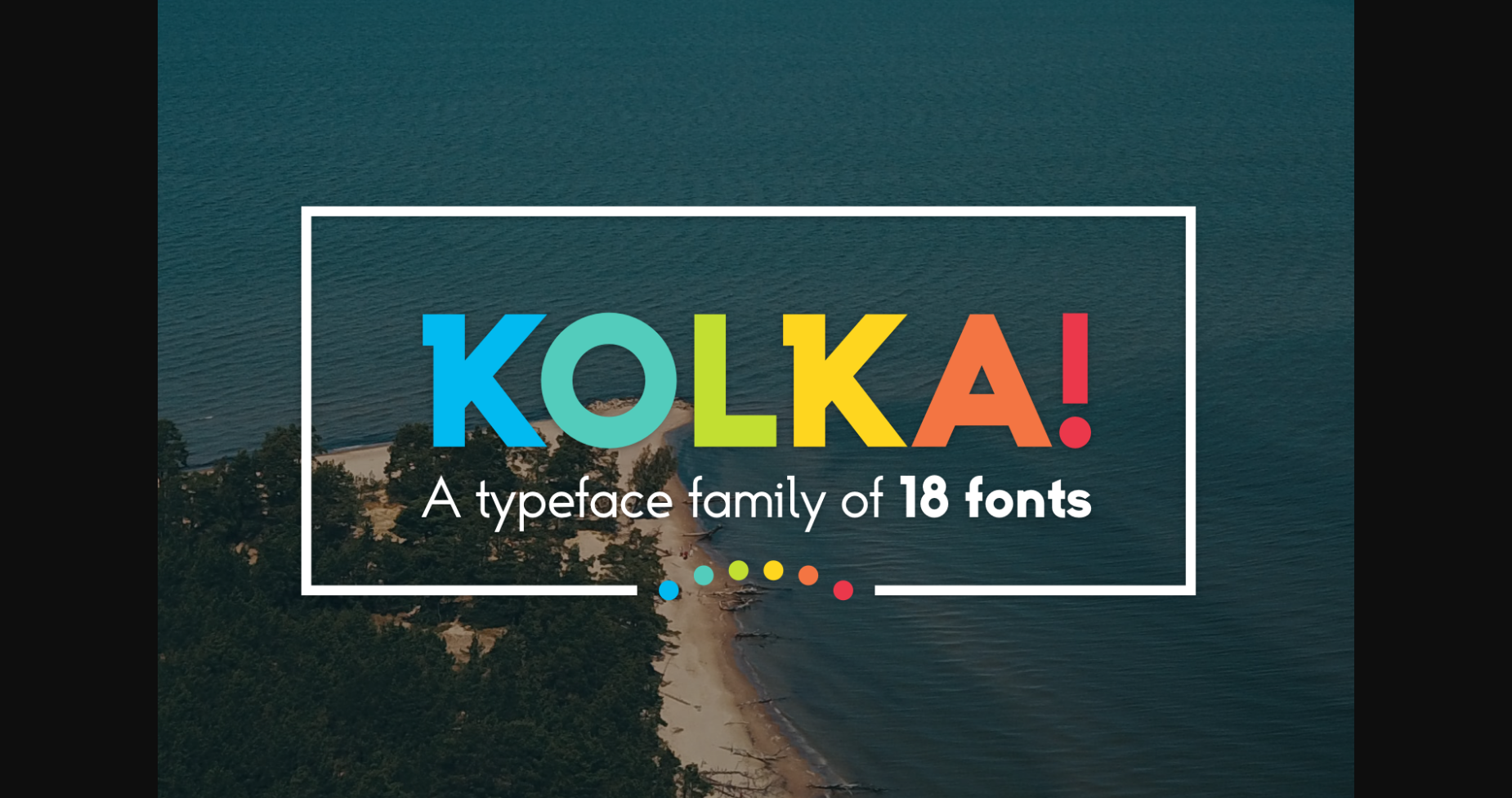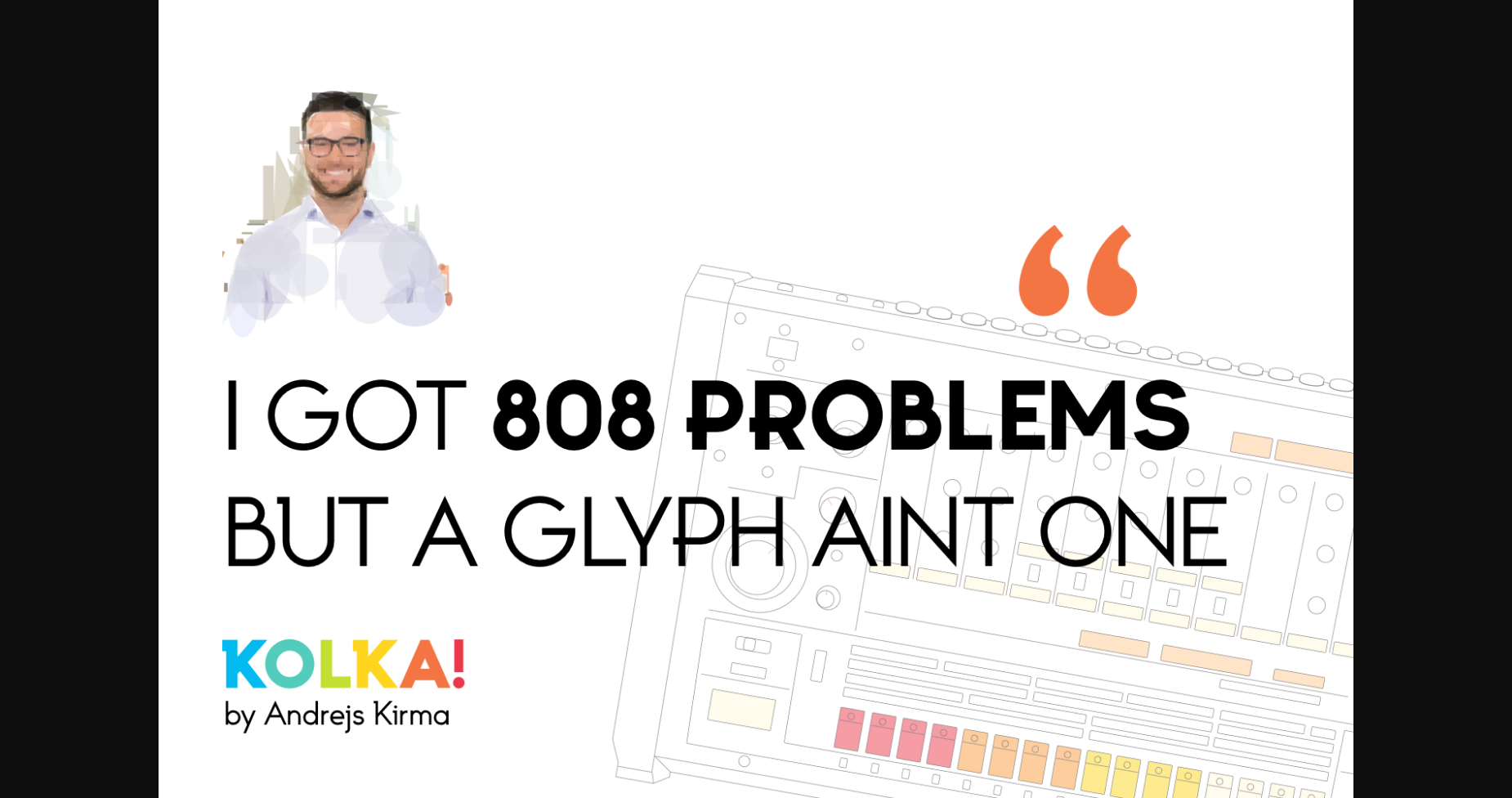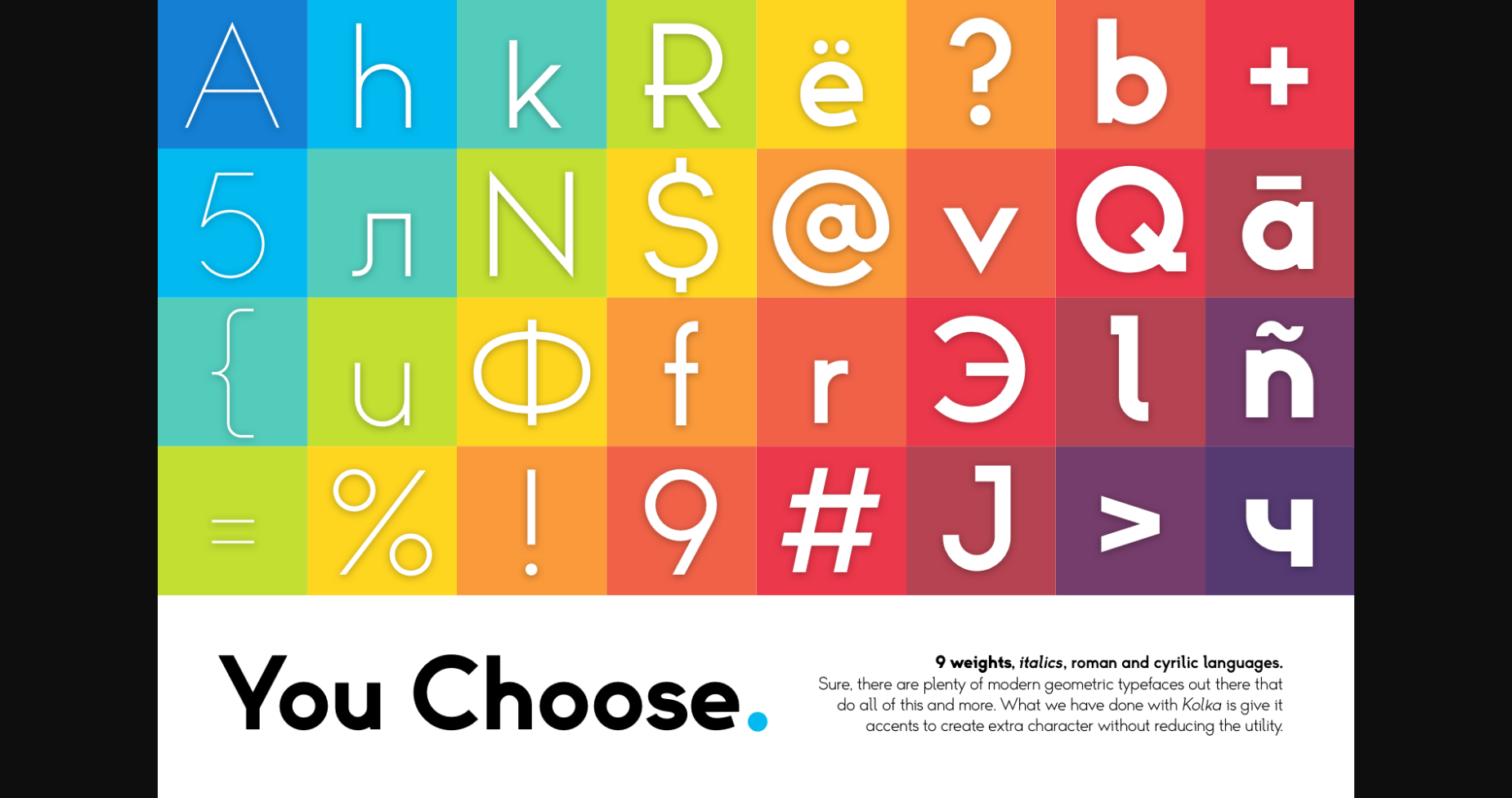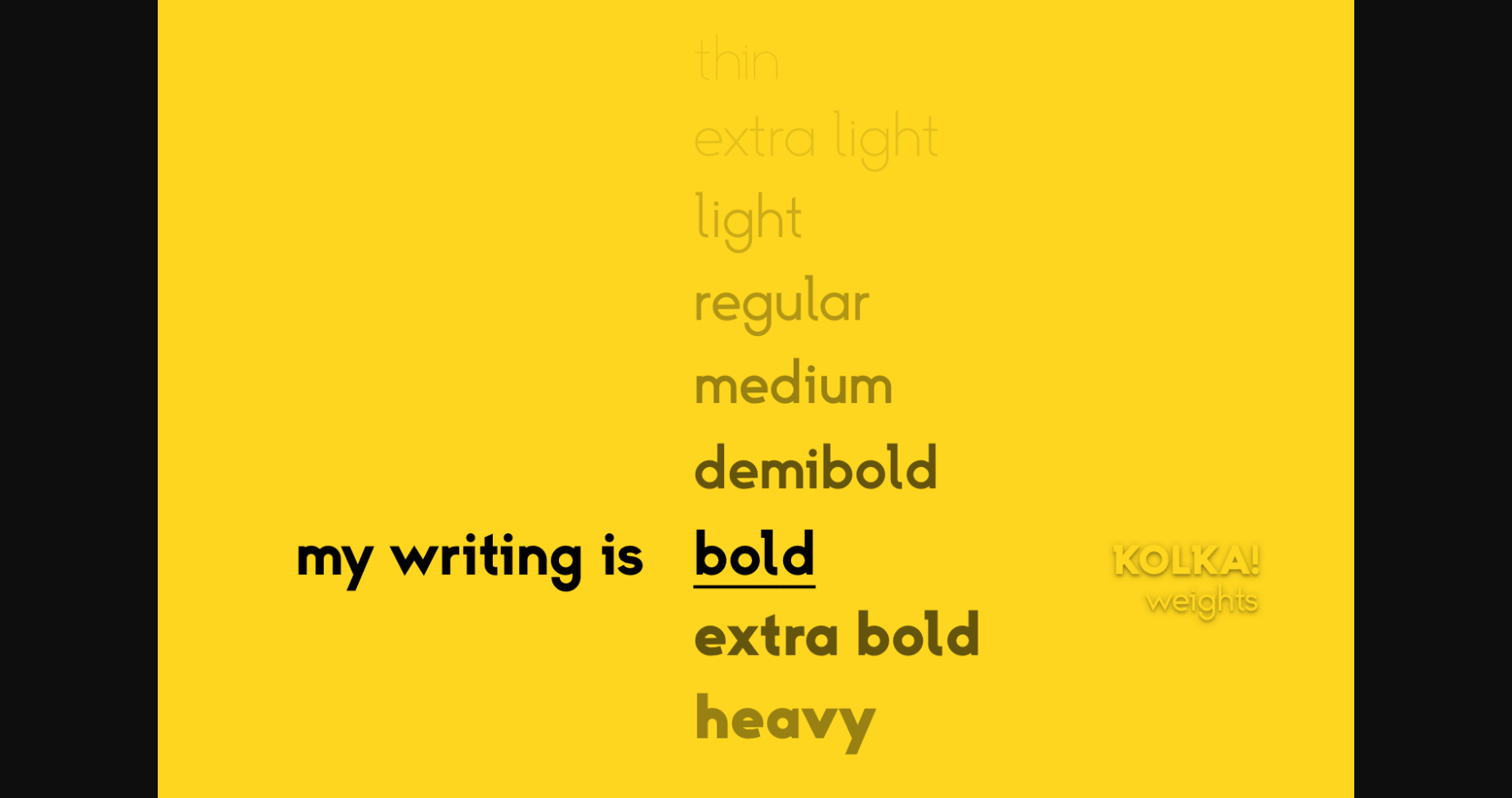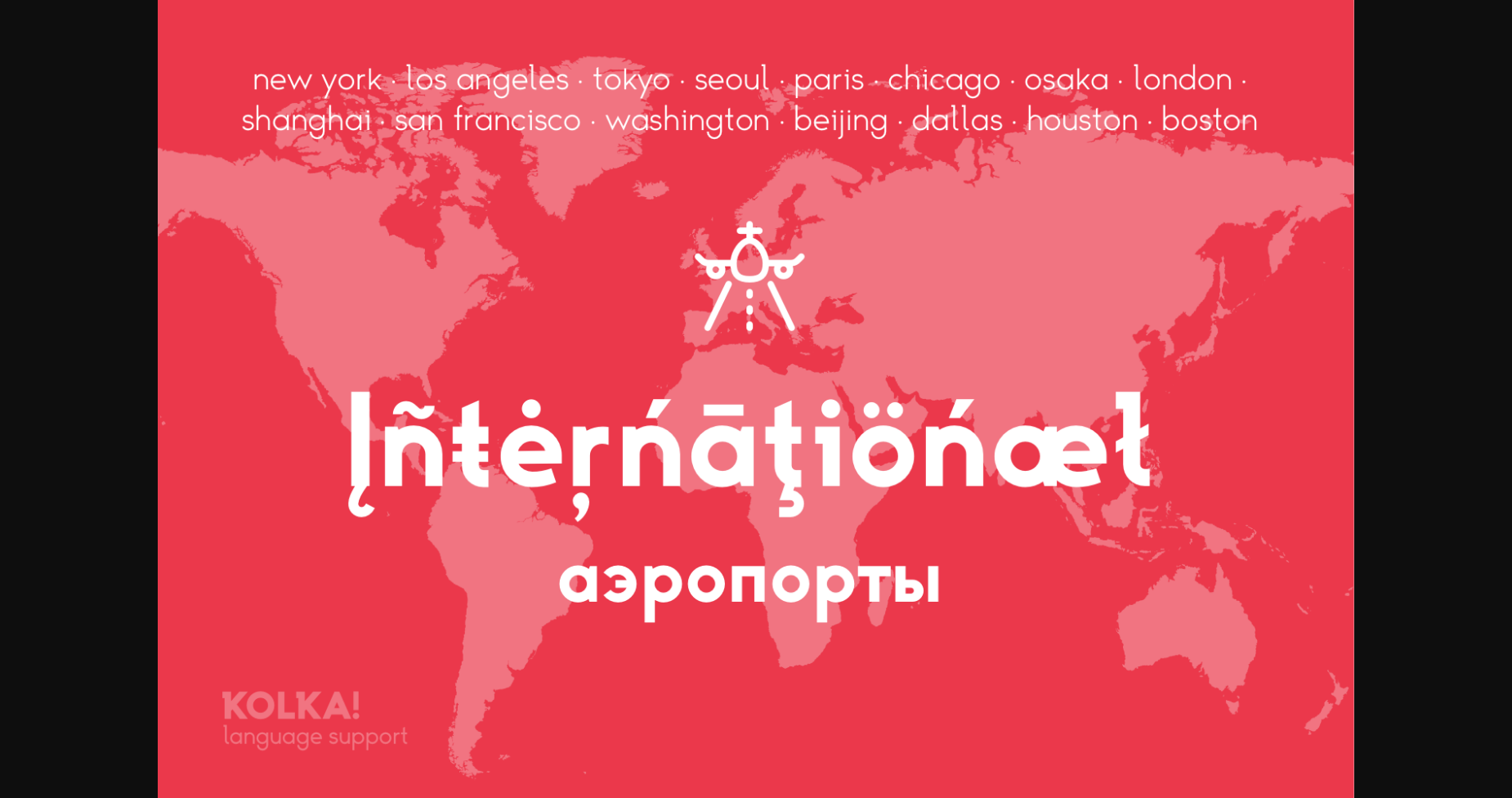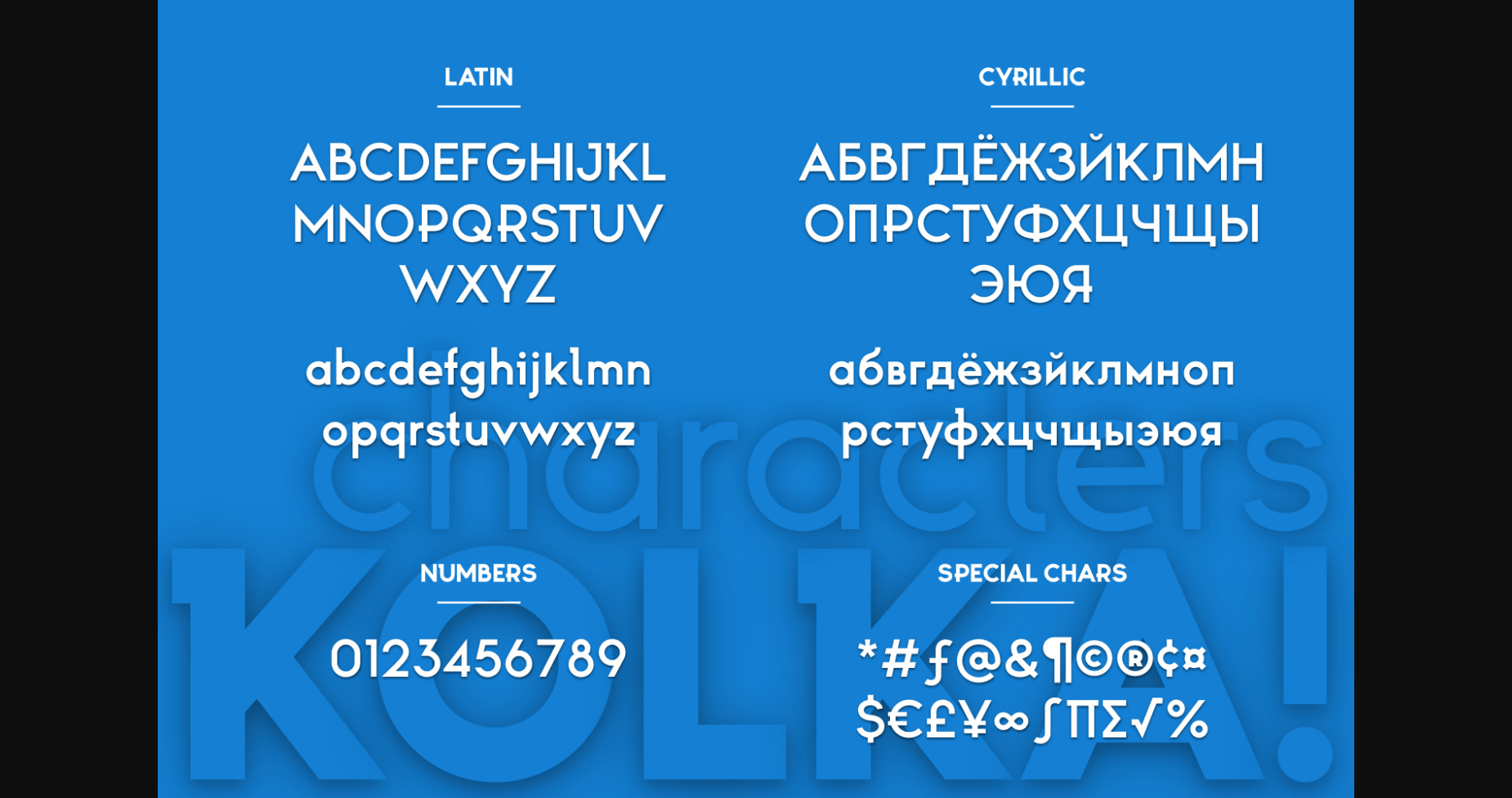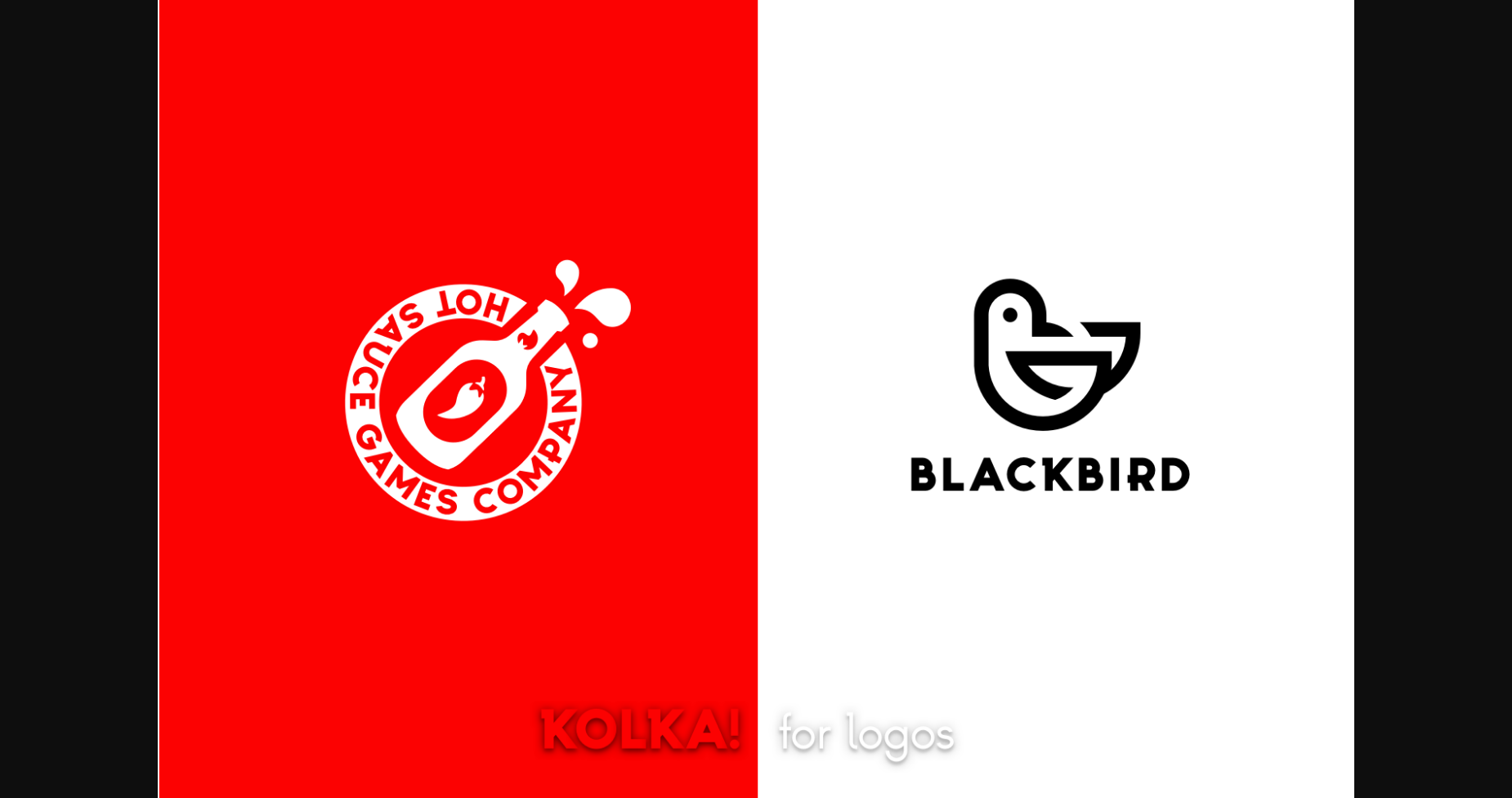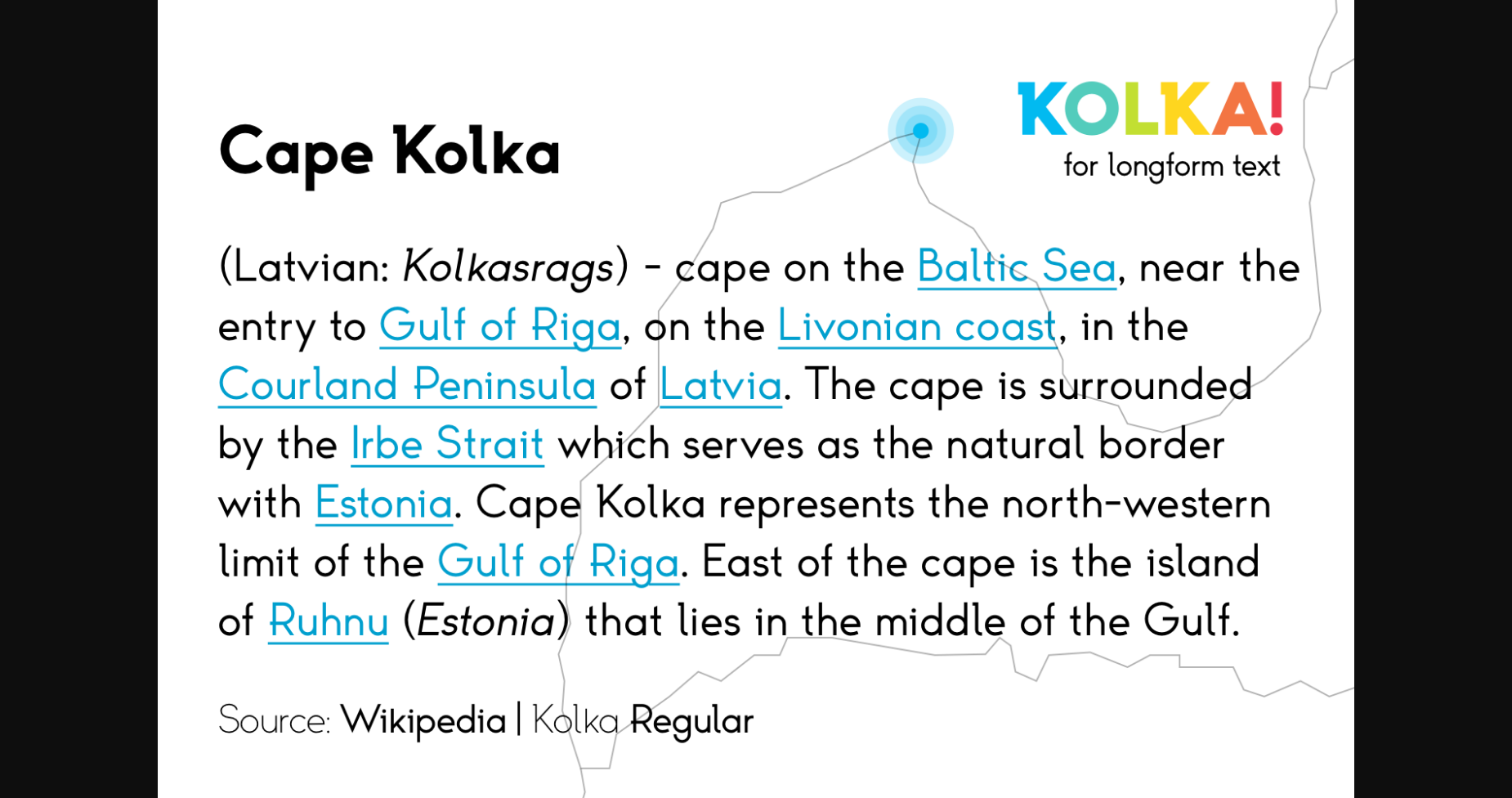
HomeSans Serif FontsKolka Font Sans Serif Fonts Kolka Font FacebookXPinterestWhatsApp 1 of 10 ... Kolka Font Poster 2... Kolka Font Poster 3... Kolka Font Poster 4... Kolka Font Poster 5... Kolka Font Poster 6... Kolka Font Poster 7... Kolka Font Poster 8... Kolka Font Poster 9... Kolka Font Poster 10... About Kolka Font Kolka is a cool,modern, and sleek-looking sans serif font. Incredibly versatile, this font is suitable for a wide spectrum of applications. DOWNLOAD NOW People also explored House Plant Font Handletter Signature Font Birthday Font Glodyla Font Yahya Designer Handmade Font Amanda Script Staycation Script Font Hall of Fun Font 754 0 TagsKolkaKolka Font Previous articleHigasper FontNext articleExtrude Font LEAVE A REPLY Cancel reply Comment: Please enter your comment! Name:* Please enter your name here Email:* You have entered an incorrect email address! Please enter your email address here Website: Save my name, email, and website in this browser for the next time I comment. Personal Use Free Pretender Personal Use Free Read more about this font Nickainley Personal Use Free Read more about this font Baby Magnolia Personal Use Free Read more about this font Edo SZ Personal Use Free Read more about this font BLOG How to Cut Any Font on Cricut: Convert a Font to SVG (Free) Turn any font into a clean SVG so it cuts crisp on Cricut - a quick 3-step workflow using a free font-to-SVG tool. Using Fonts in Digital Marketing: Tips to Strengthen Your Brand Identity Top 10 Handwritten Fonts That Elevate Your Designs Transform Your Website: Elevate Your Typography with 7 Best Web Font Generators